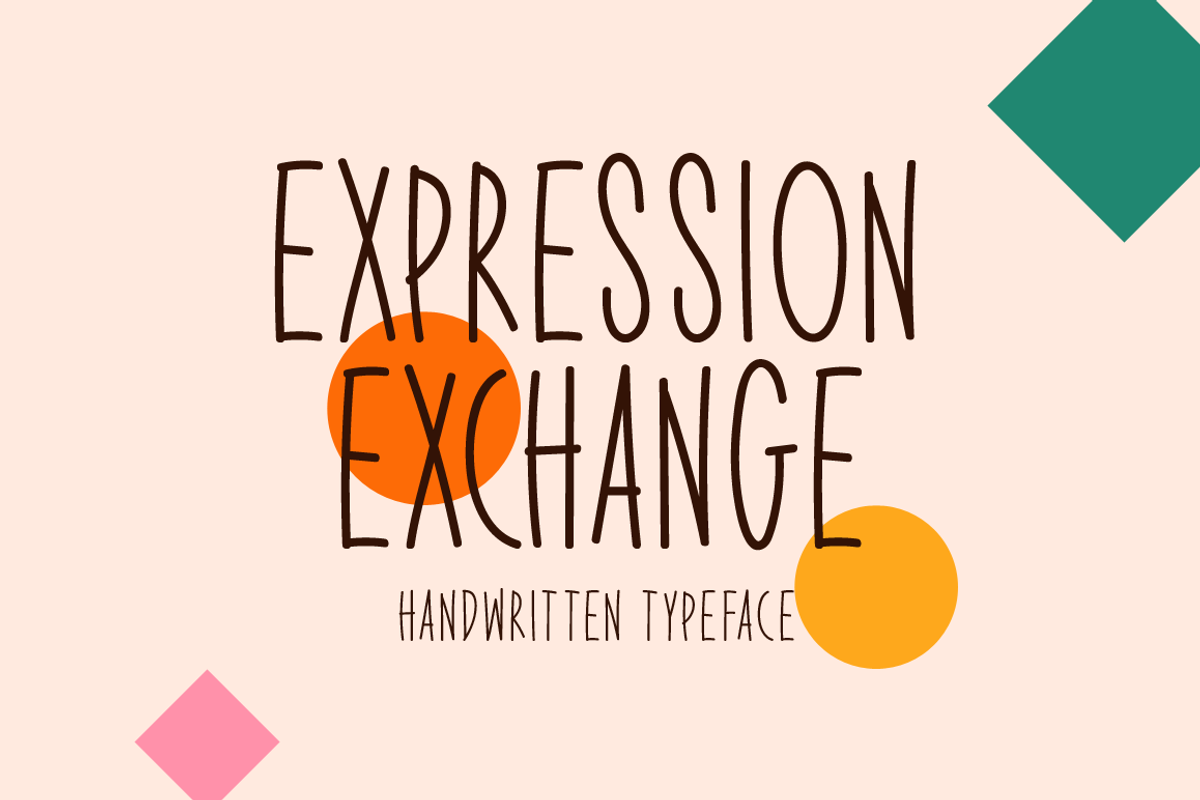
Please note, to use this font for commercial purposes, you must purchase the full version. Expression Exchange is a modern and versatile typeface designed to express creativity and style. With its clean lines and contemporary design, this font is perfect for branding, logos, editorial projects, and more. Whether you're working on a sleek modern brand or a unique creative project, Expression Exchange brings clarity and character to your designs. Test it out and enjoy free download access for personal use. Discover the flexibility and charm of Expression Exchange Typeface Free Download before purchasing the commercial license. Elevate your design projects with the stylish and versatile Expression Exchange.